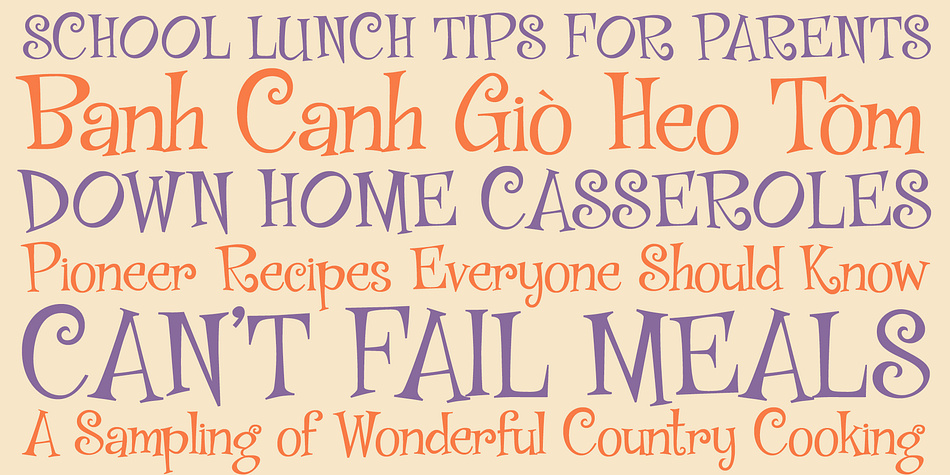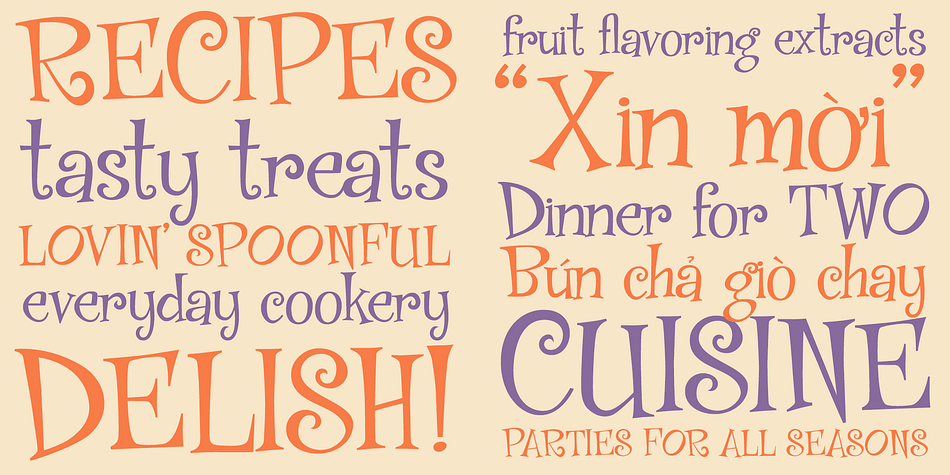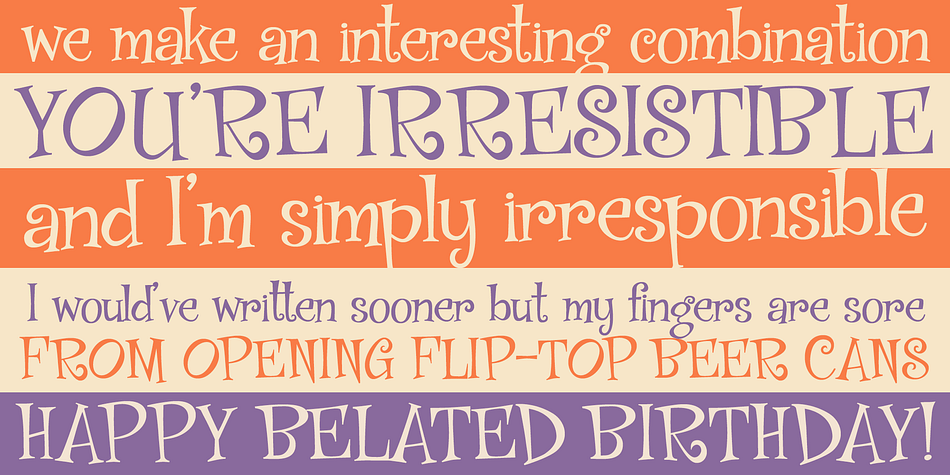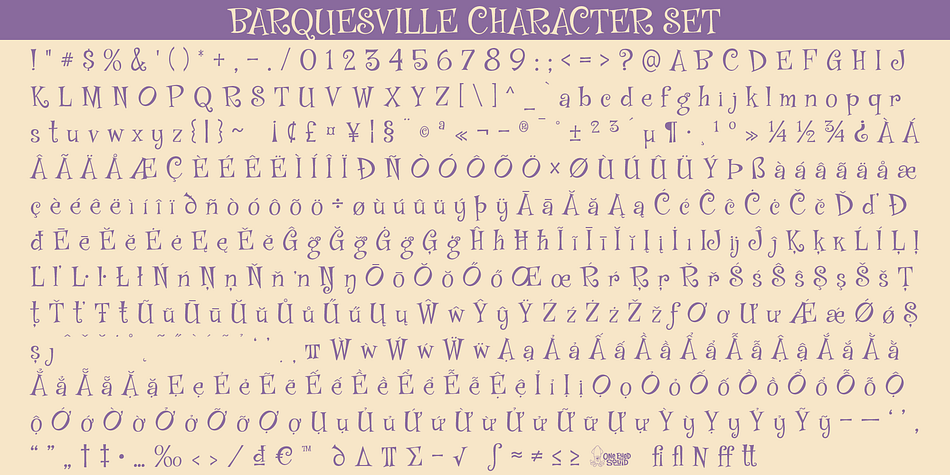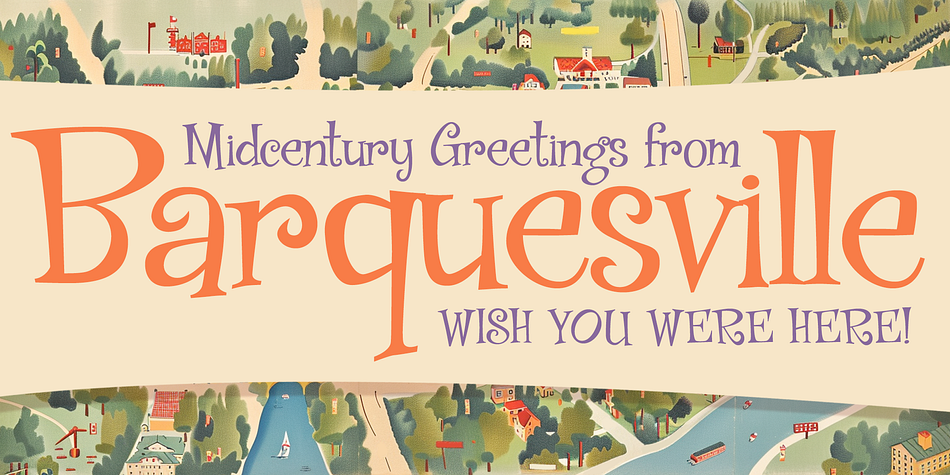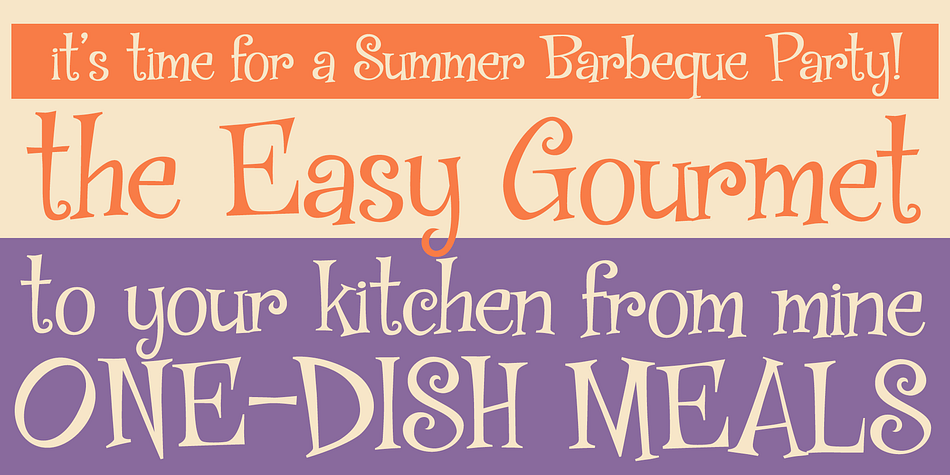
Barquesville
Designed by Dave Cohen and Brian J. Bonislawsky, Barquesville is a kids font family published by One Eyed Squid.
Straight out of a mid-century greeting card studio and ready to add some fun to your casual graphics projects. It’s bubbly, bright, and bouncy… It’s Barquesville!
(Barquesville contains an extended Latin character set with added Vietnamese support.)